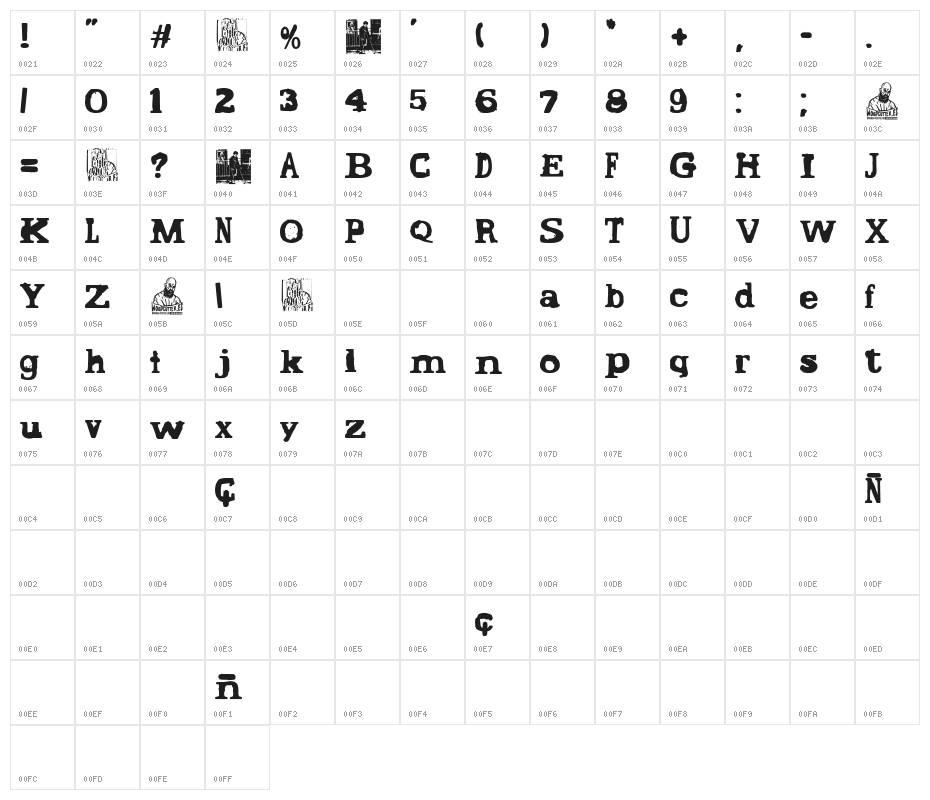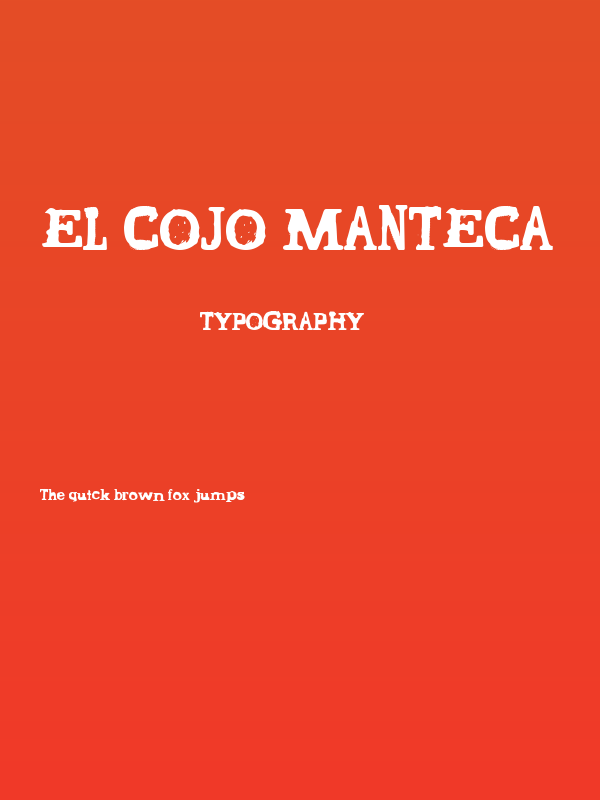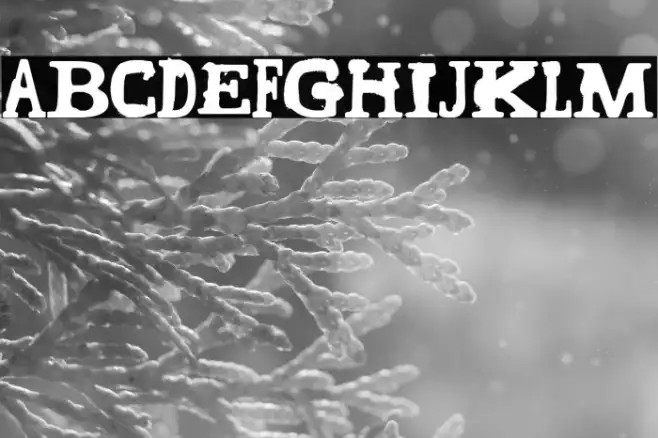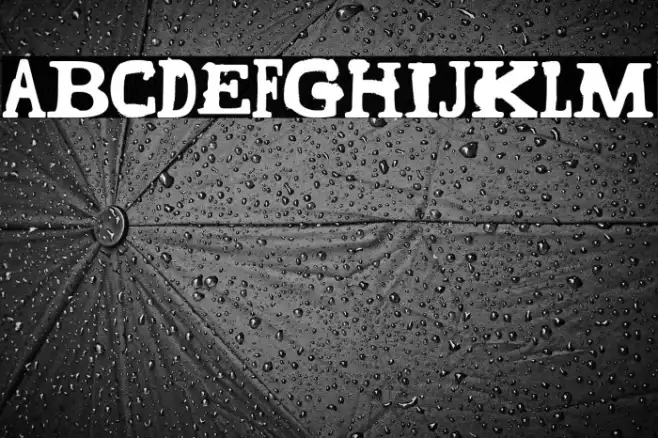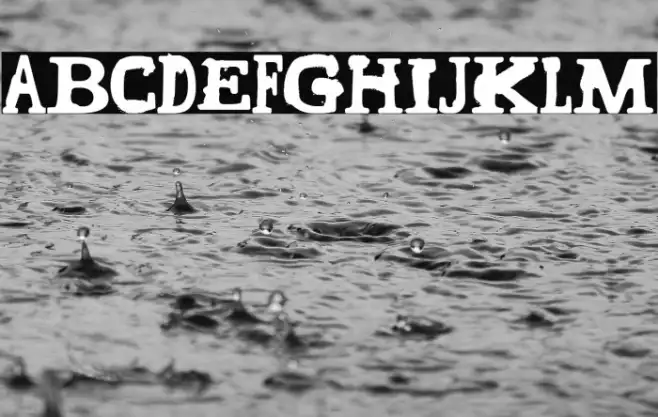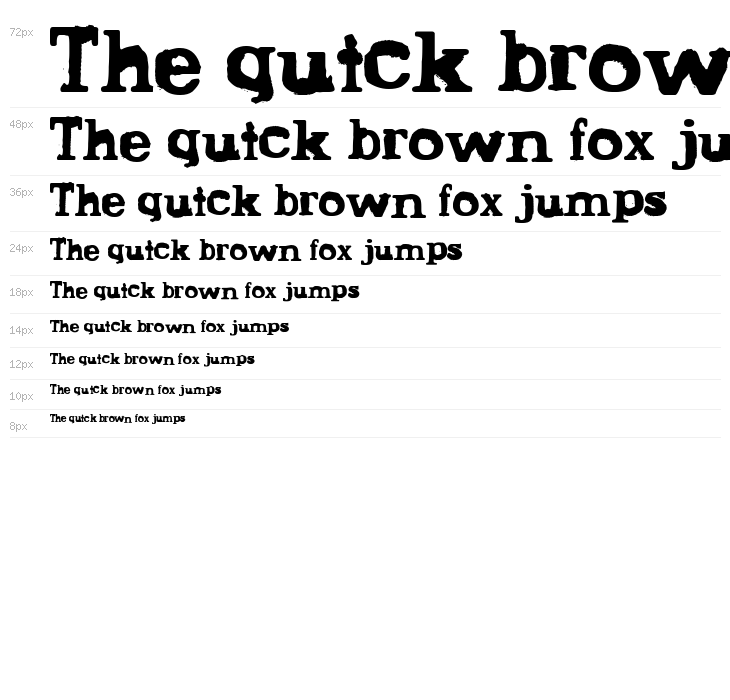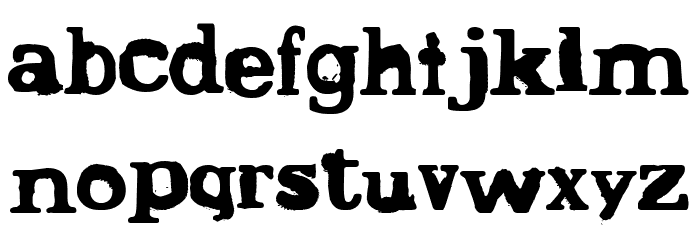
El Cojo Manteca Font
This font features a rugged, distressed style with a bold and impactful presence. The characters have a rough, textured appearance, giving them a hand-crafted, vintage feel. The uppercase and lowercase letters maintain a consistent style, with slightly uneven edges that add to the font's rustic charm. The numbers and special characters follow the same aesthetic, ensuring a cohesive look across all text. The font's design is reminiscent of old woodcut prints, making it ideal for projects that require a touch of nostalgia or a gritty, authentic vibe.
| Use Case | Logos, Posters, Headlines |
| Proposed Projects | Perfect for posters, album covers, branding for artisanal products, or any design needing a vintage, rustic touch. |